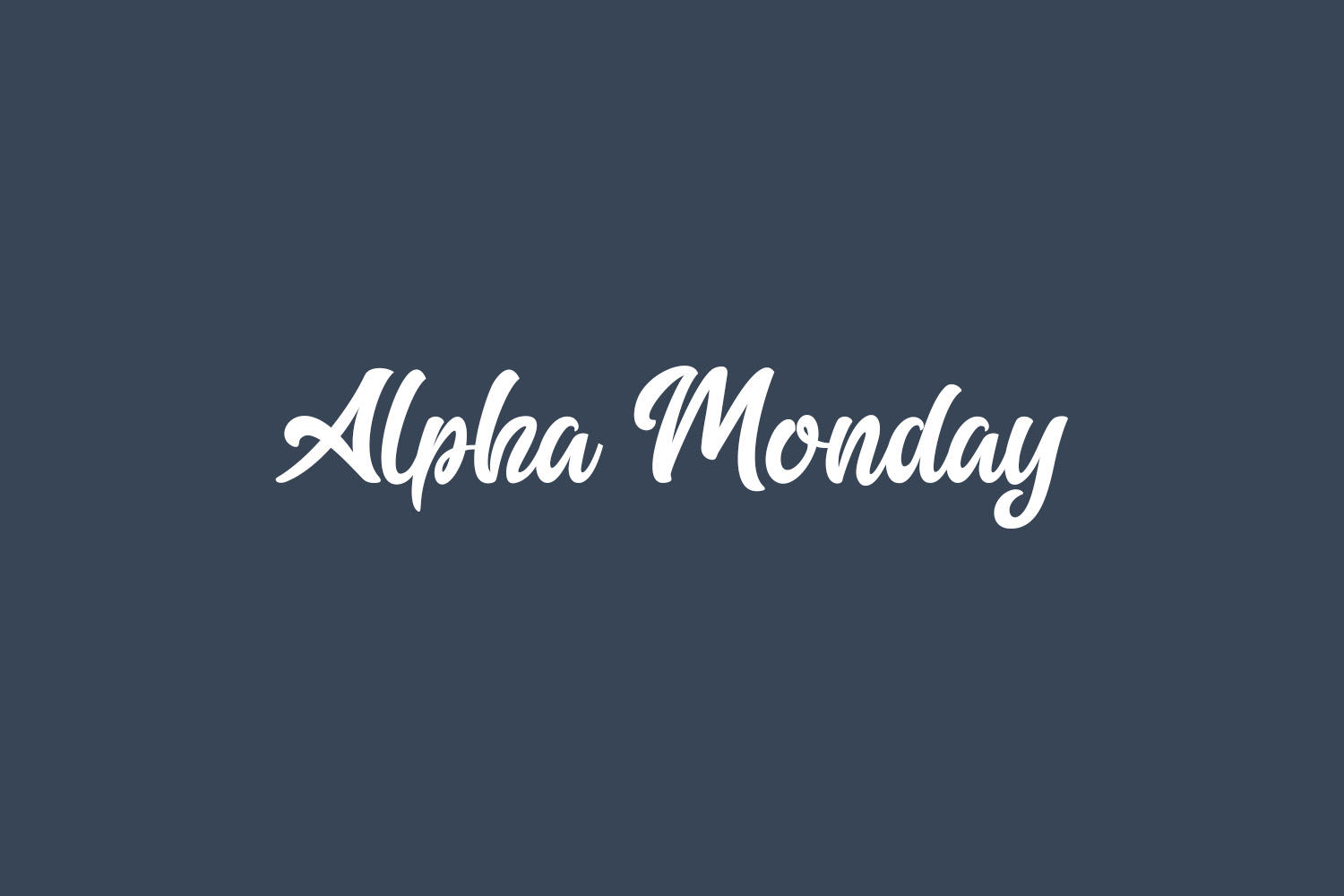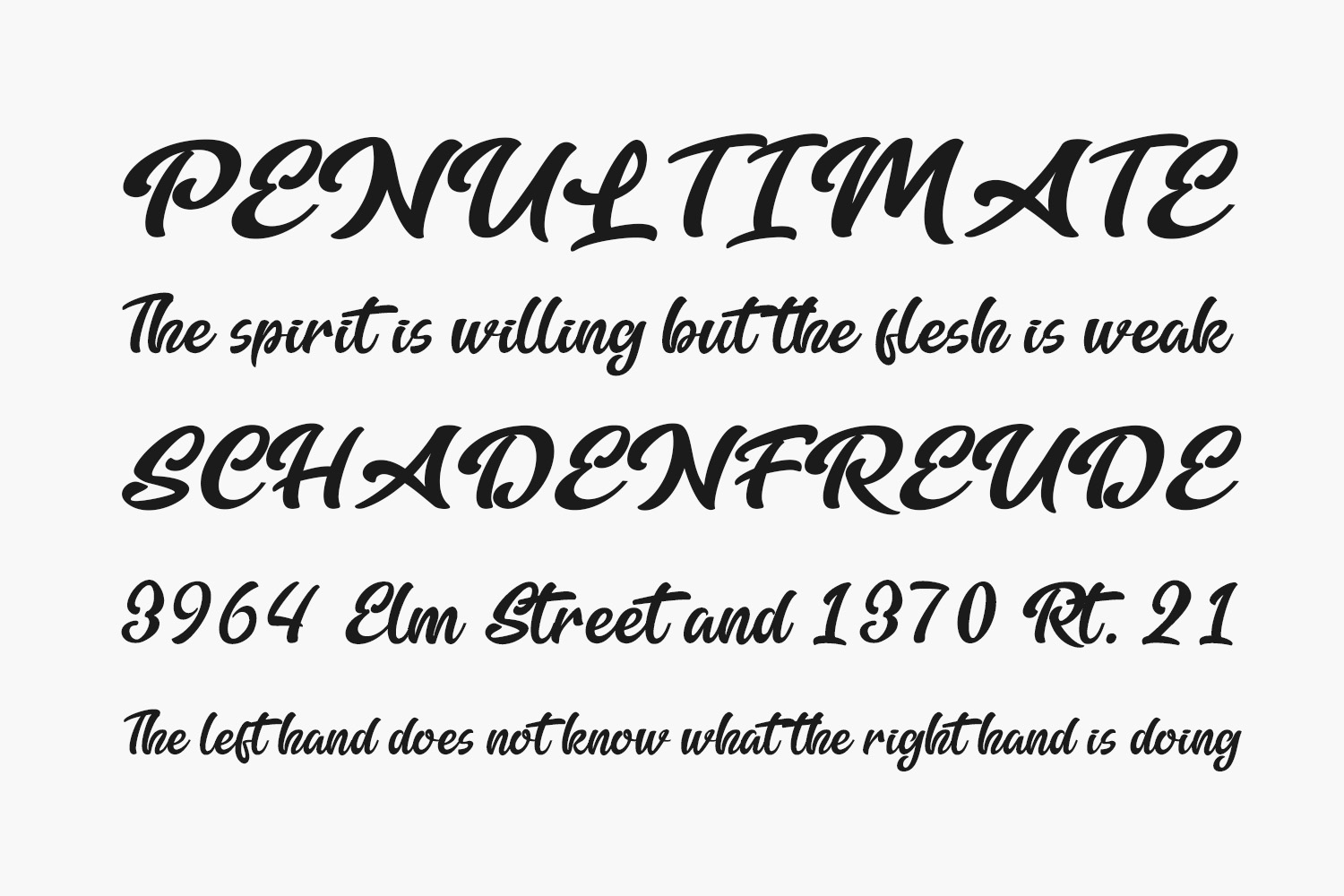
Alpha Monday Free Font is a fresh and cool handwritten font. Add it to your most creative ideas and notice how it makes them come alive. Alpha Monday Free Font was designed by Eknoji Studio and is free for personal use only. Please purchase the full version for commercial use.